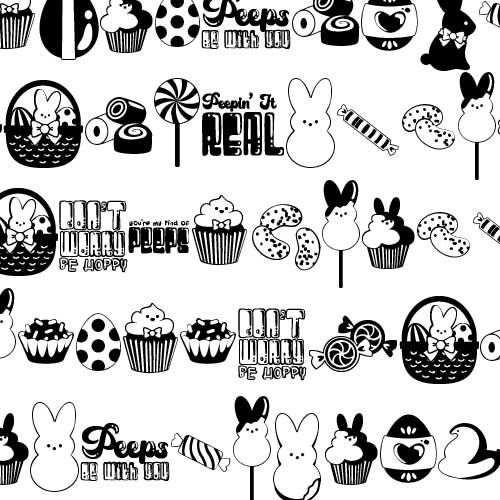
DB Sweet Peeps - DB
This adorable doodlebat font features 26 beautiful Easter Treats, perfect for cards, crafts, gifts, planner stickers, decor, classrooms, scrapbook pages and more!